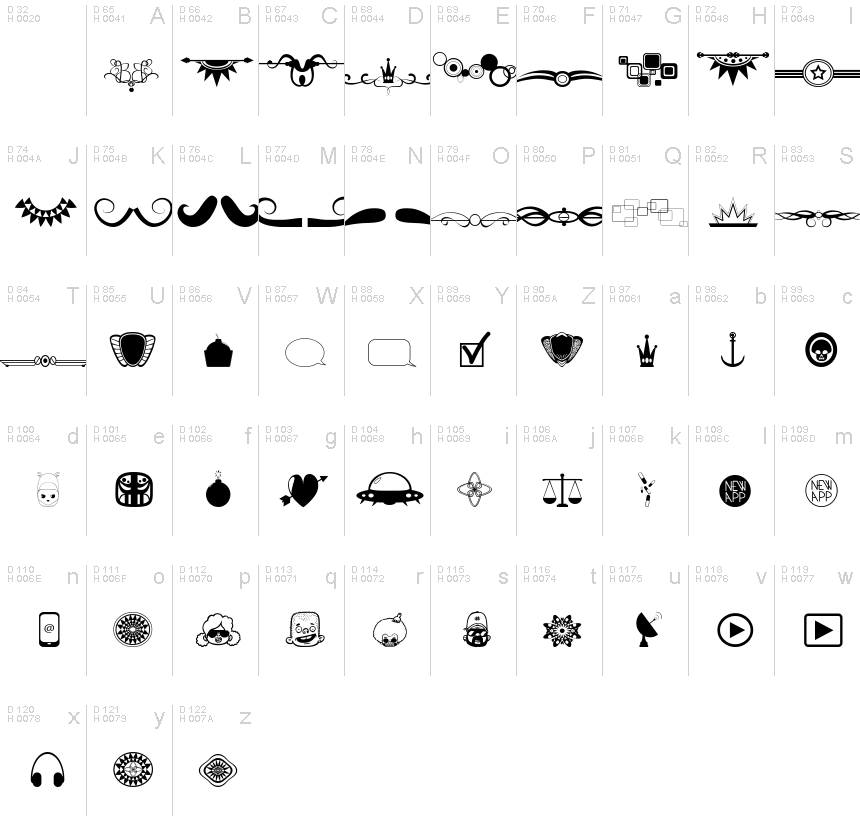
Ornament mix
Ornament Mix is a captivating dingbat font that exudes a bold, whimsical charm. Designed by dcoxy Medina Gregory, this font features an eclectic mix of stylized icons and symbols, ranging from a regal crown to a menacing skull. The stark black-and-white palette lends a striking, modern aesthetic, while the varied shapes and forms create a sense of playfulness and visual interest.
This versatile font can elevate a wide range of design projects, from branding and packaging to editorial layouts and digital interfaces. Its unique character makes it an excellent choice for adding a touch of personality and flair to any design. Ornament Mix's distinctive visual language can be leveraged to convey a range of moods, from playful and lighthearted to edgy and rebellious.